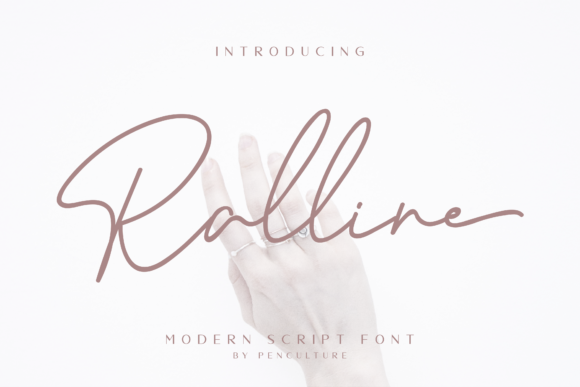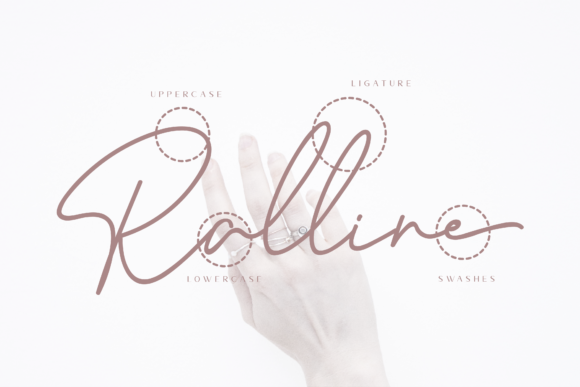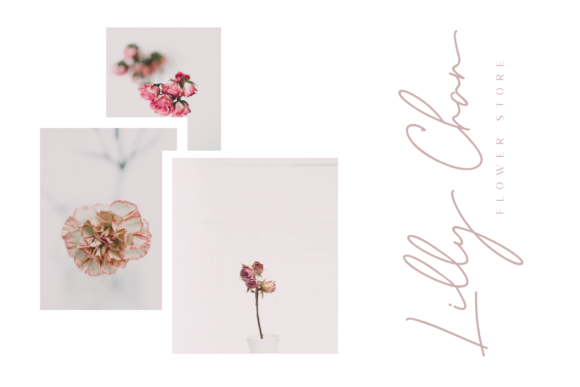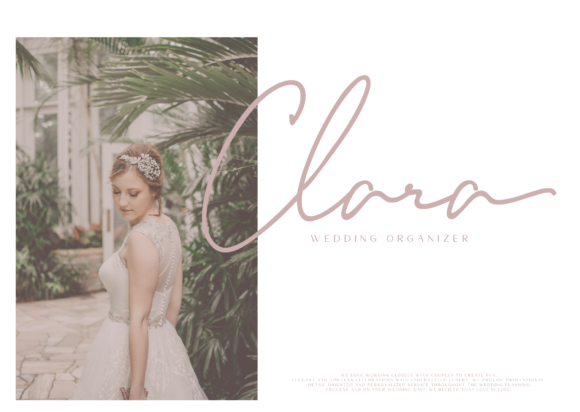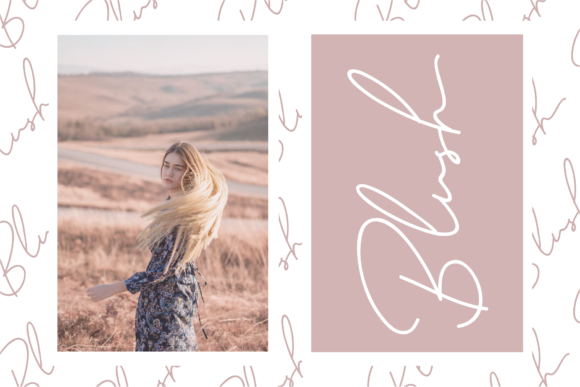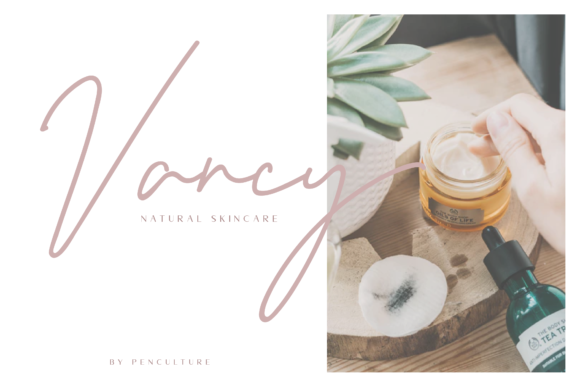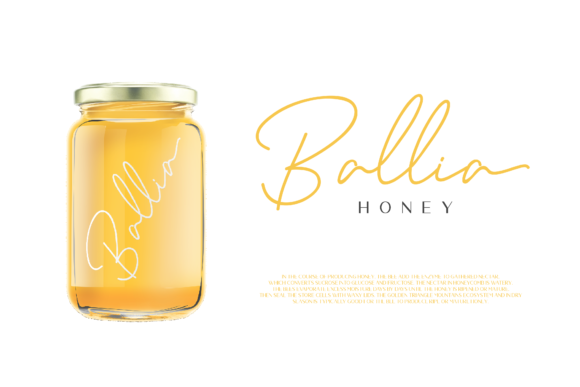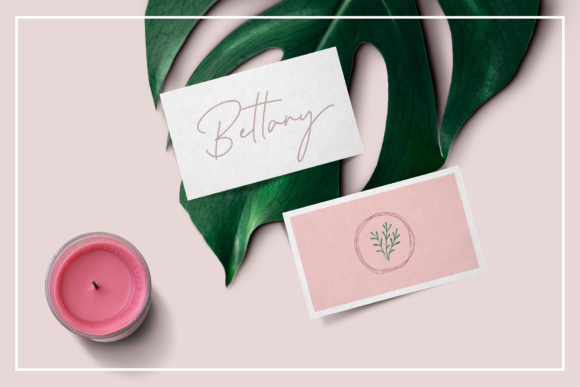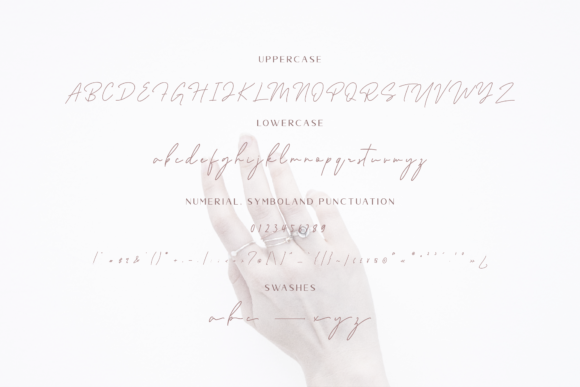
HomeScript FontsRalline Font Script Fonts Ralline Font FacebookXPinterestWhatsApp Ralline Font Poster 2 Ralline Font Poster 3 Ralline Font Poster 4 Ralline Font Poster 5 Ralline Font Poster 6 Ralline Font Poster 7 Ralline Font Poster 8 Ralline Font Poster 9 Ralline Font Poster 10 About Ralline Font Ralline is an incredibly stunning and cool handwritten font with a unique charm. Get inspired by its smooth charm. DOWNLOAD NOW People also explored David Halloween Font Two Hearts Font Cinderella Font Ellisa Snowly Font Fisherman Font Senlot Allerlei Zierat 3 Font Eccelino Font Aromusk Font 276 0 TagsRalline Font Previous articleHarelia Script FontNext articleThimberly Font LEAVE A REPLY Cancel reply Comment: Please enter your comment! Name:* Please enter your name here Email:* You have entered an incorrect email address! Please enter your email address here Website: Save my name, email, and website in this browser for the next time I comment. Personal Use Free Hollster Personal Use Free Read more about this font Gagalin Personal Use Free Read more about this font Fontmageddon Personal Use Free Read more about this font Haris Wood Personal Use Free Read more about this font BLOG How to Install and Use Fonts on Windows, macOS, and Web Projects How to Install and Use Fonts on Windows, macOS, and Web Projects Fonts are a crucial part of design and branding. Whether you’re designing a... Top 7 Google Fonts Alternatives for Faster and Privacy-Friendly Web Design (2025) How to Cut Any Font on Cricut: Convert a Font to SVG (Free) Free Fonts Risk: Why Free Fonts Can Be Dangerous for Designers